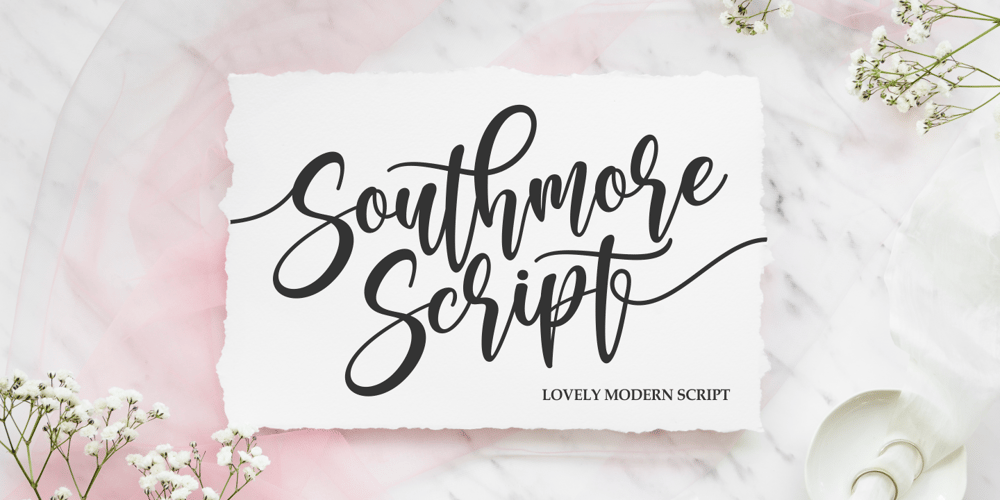
Southmore Font Family was designed by Riyadh Rahman and published by Ergibi Studio. Southmore contains 1 styles and family package options. Southmore Script – Lovely Modern Script, Southmore that contain lowercase, uppercase, symbol and also support multi-language in this font. Southmore also comes with Swash and doodle font, is perfect for logos & branding, photography, invitation, watermark, advertisements, product designs, stationery, wedding designs, label ,product packaging, special events or anything that need special taste. or handwritten quote. Also already PUA